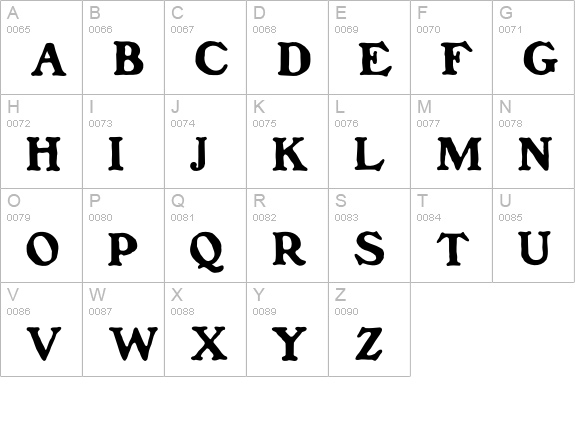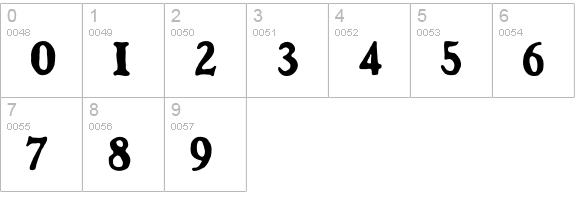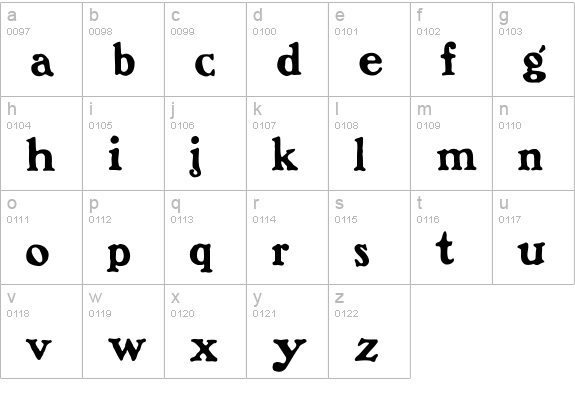
Bostonia font is a modern and elegant typeface that exudes sophistication and versatility. With its clean lines and stylish curves, this font is perfect for a wide range of design projects, from branding to editorial design. Whether you're creating a sleek logo or designing a high-end brochure, Bostonia font will add a touch of class to your work. What sets Bostonia font apart is not only its striking appearance but also its accessibility. This premium font is available for free download at FontsMarket.com, making it an excellent choice for designers who are looking for quality fonts without breaking the bank. With Bostonia font, you can elevate your design projects without any cost, making it a valuable addition to your font collection. Overall, Bostonia font combines elegance and practicality, making it a must-have for any designer looking to enhance their projects with a touch of sophistication. Download Bostonia font today from FontsMarket.com and take your designs to the next level!